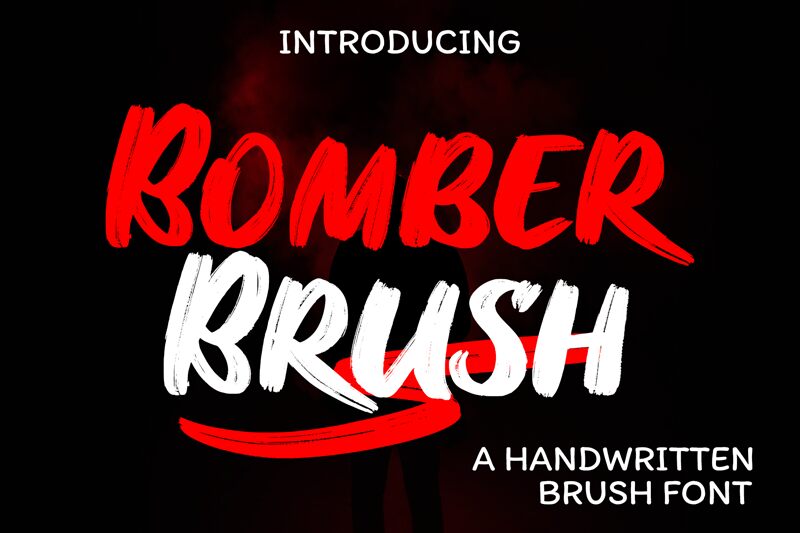
Bomber Brush
Bomber Brush, designed by Bearytype, is a bold, dynamic brush font that exudes an air of confidence and creativity. Its sweeping strokes and organic flow capture the essence of handwritten expression, lending a sense of authentic artistry to any design. The font's striking visual presence commands attention, making it a compelling choice for branding, headlines, and artistic compositions.
Bomber Brush's versatility shines through its ability to seamlessly integrate into a wide range of design contexts. Its bold, expressive nature lends itself well to impactful displays, while its brush-like quality also allows for more subtle applications in editorial layouts, packaging design, and product branding. The font's unique character ensures that it stands out, making it an ideal choice for designers seeking to create a memorable, visually-striking impact.